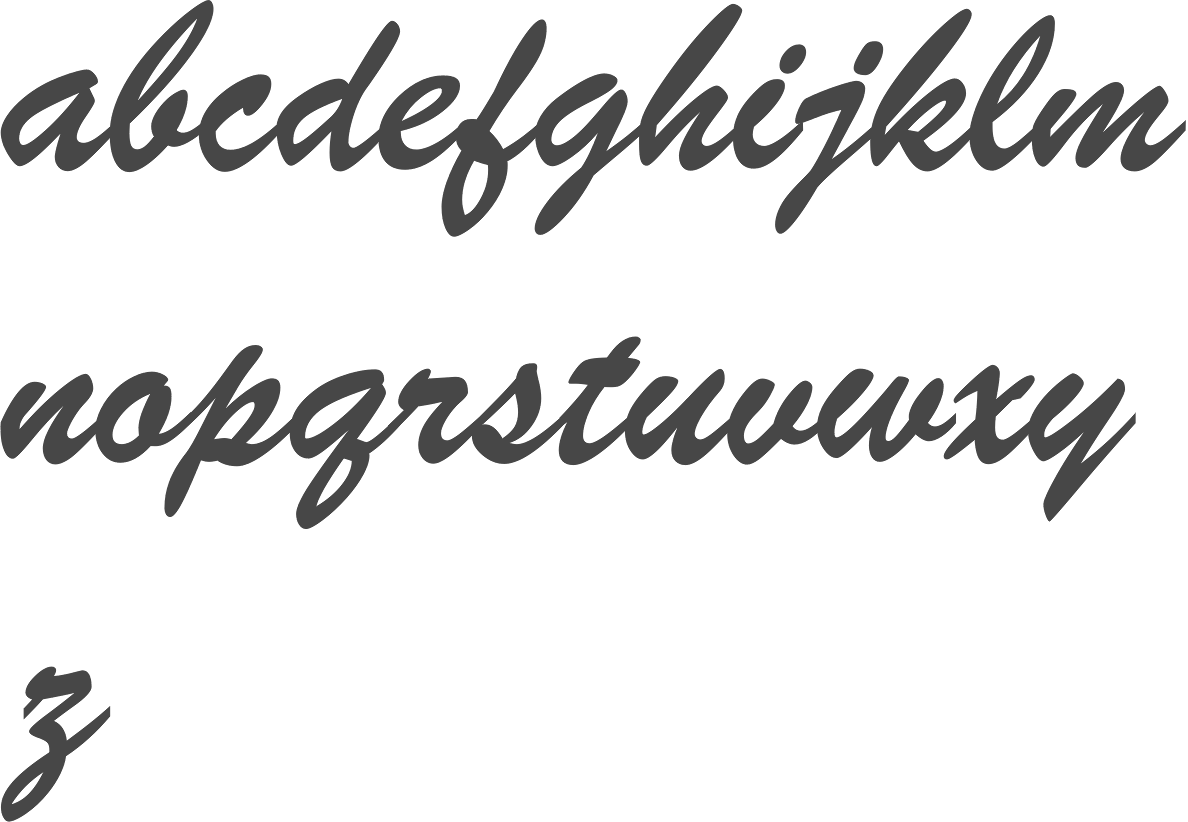
Awasome 1950S Serif Fonts References
Awasome 1950S Serif Fonts References. Web typical of 19th century serif fonts, de vinne’s slender stems give it a distinctly victorian look that would make a great body text choice for posters. Web looking for 1950s fonts?
Web looking for vintage serif fonts? The font has two styles and. Stempel ag foundry, frankfurt, germany.
Serif Typefaces Have Small Projections At The Ends Of The Letter Strokes.
Web vintage 50s retro fonts. Cottage sans is a 1950’s style font created by monocotype. A serif font is a font with small strokes or extensions at the end of its longer strokes.
Stempel Ag Foundry, Frankfurt, Germany.
Every font is free to download! Web typical of 19th century serif fonts, de vinne’s slender stems give it a distinctly victorian look that would make a great body text choice for posters. Fast rewind 1950s inspired brush.
The big tickle font family was born from the smooth jazz and loud rockabilly music of the 50s. Web we have 74 free retro, 1950s fonts to offer for direct downloading · 1001 fonts is your favorite site for free fonts since 2001 Web looking for 1950s fonts?
Serif fonts are used for body text because they are very easy to read. Click to find the best 448 free fonts in the vintage serif style. Every font is free to download!
Highbinder Display Font Is The Newest Font From Vintage Type Co.
Web the serifs in andromeda reflect movement and joy and the boldness of the font is great for any fun, joyful display project. The font has two styles and. Web meet a clean condensed sans serif typeface inspired by similar retro fonts from the 1950s.